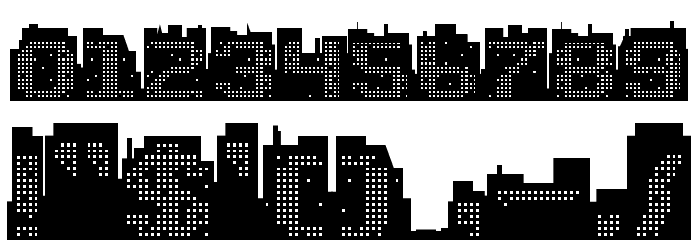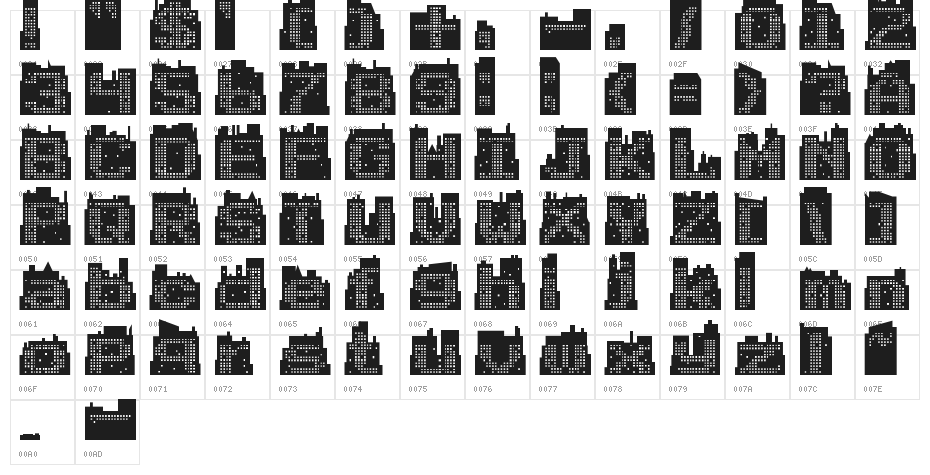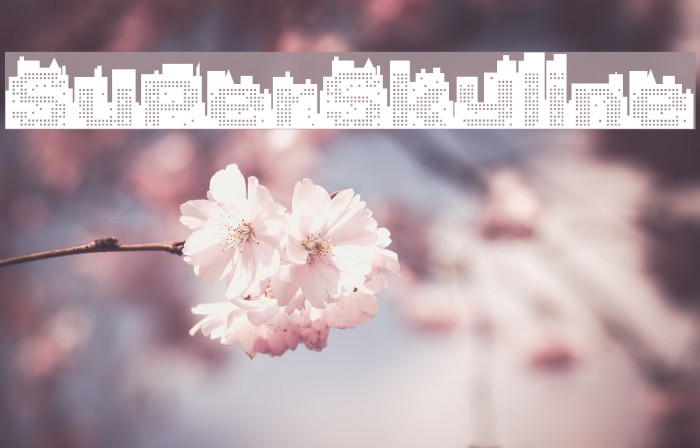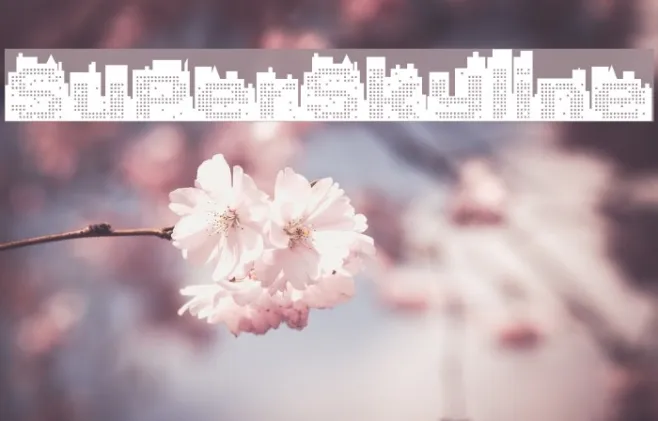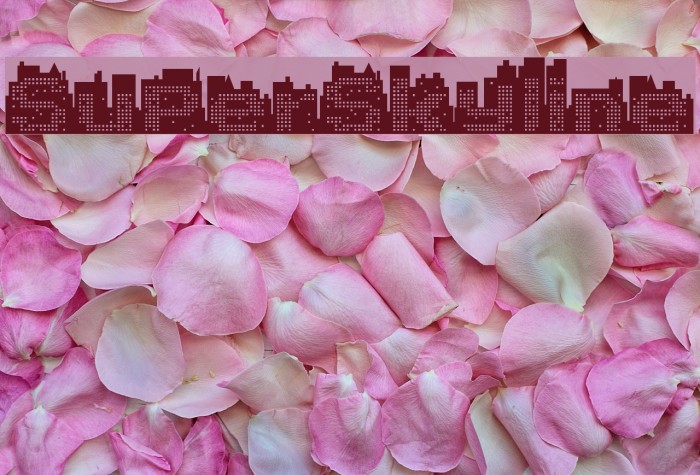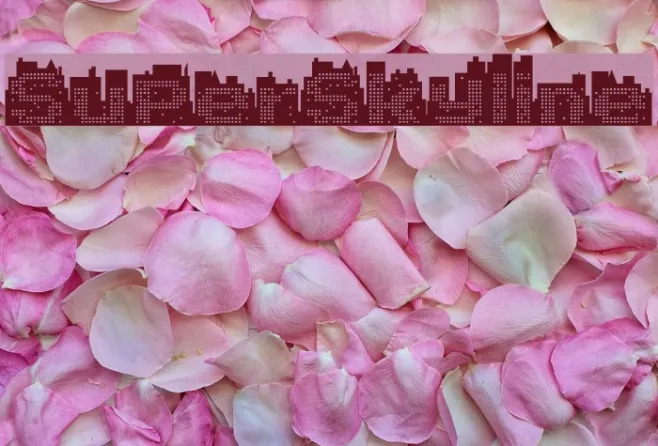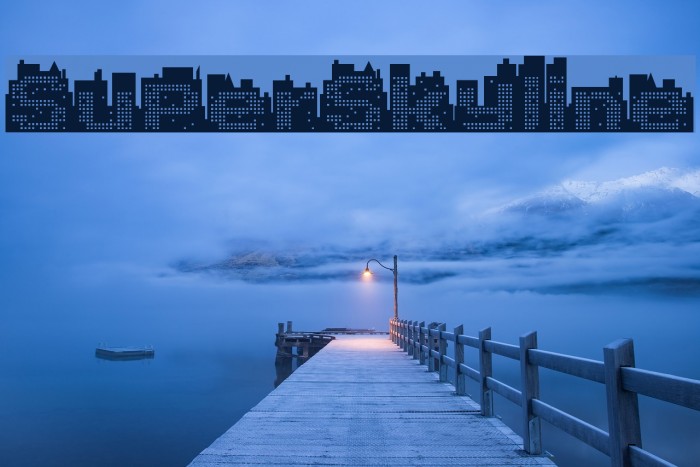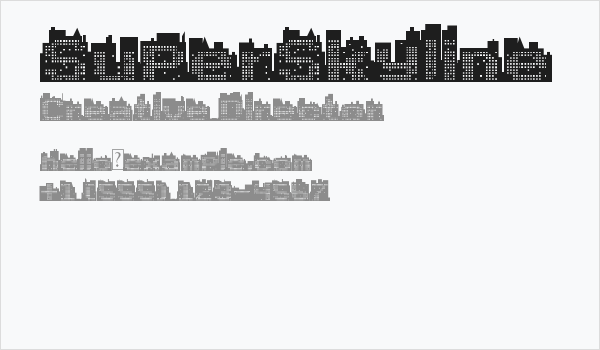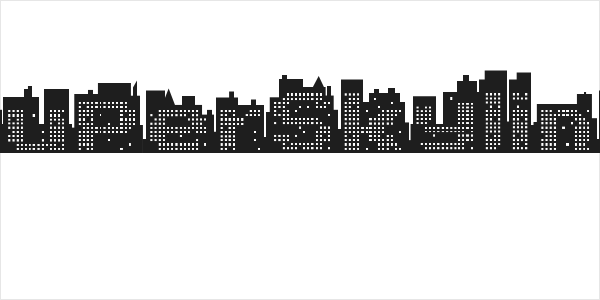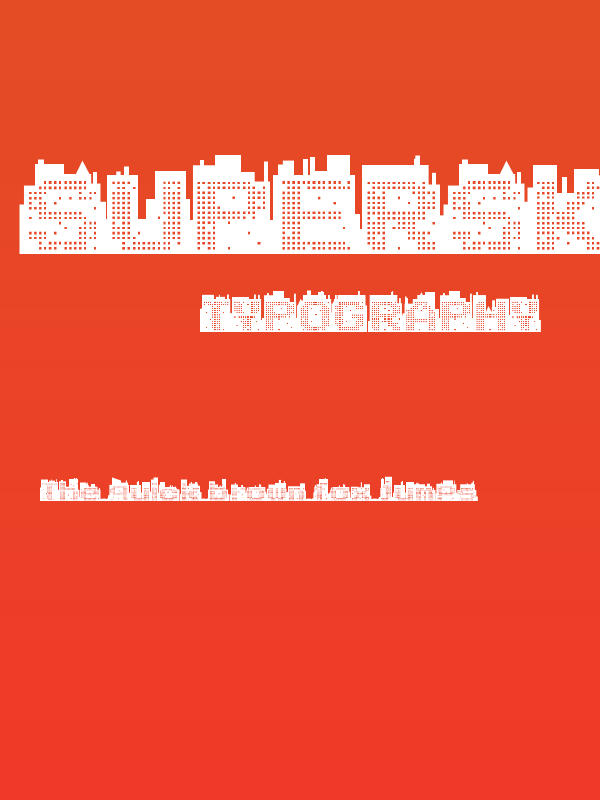
SuperSkyline Font
SuperSkyline Description
This font features a unique design that mimics a city skyline, with each character resembling a building silhouette. The letters are composed of solid black shapes with small square windows, giving the impression of an urban landscape at night. The uppercase and lowercase letters maintain a consistent style, with the lowercase being slightly smaller but equally detailed. Numbers and special characters follow the same architectural theme, ensuring a cohesive look across all glyphs. The font's intricate design makes it ideal for projects that require a bold, eye-catching aesthetic.
| Proposed Projects | Ideal for urban-themed posters, architectural presentations, city event flyers, and creative branding projects. |